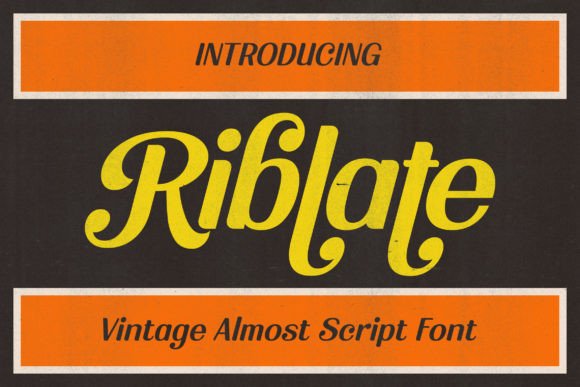
Unleash the captivating charm of Riblate Font, a vintage retro pop casual font that exudes a touch of youthful rebellion. Break free from formal, stiff fonts and embrace the playful spirit of Riblate, where classic meets contemporary to create a striking visual presence.
Riblate is more than just a font; it's an expression of individuality, a reflection of your unique style. With its casual touch, Riblate pops with energy, bringing a youthful vibrancy to your creative endeavors.
Picture your logo, branding, signage, posters, magazines, books, covers, badges, emblems, clothing, apparel, merchandise, and more adorned with the distinctive characters of Riblate. Its versatility knows no bounds, allowing you to weave a captivating narrative that resonates with your audience.
Riblate's playful nature lends itself perfectly to movie titles and serials, capturing the essence of adventure, drama, and intrigue. Let your words dance across the screen, captivating viewers with their retro charm and youthful exuberance.
If you seek a font that speaks to your creative spirit and ignites the imagination, look no further than Riblate. Its unique blend of vintage charm and modern flair will transform your designs into captivating works of art.